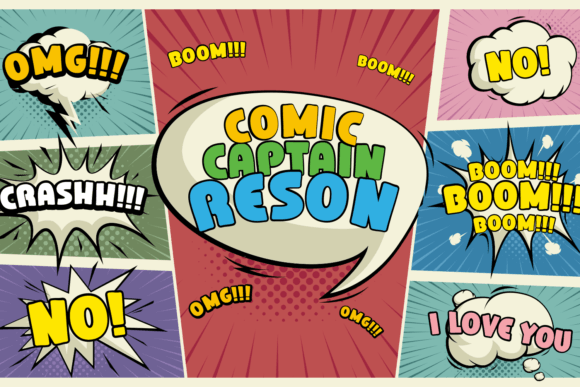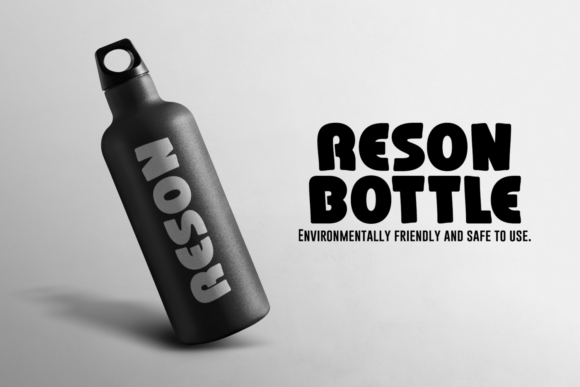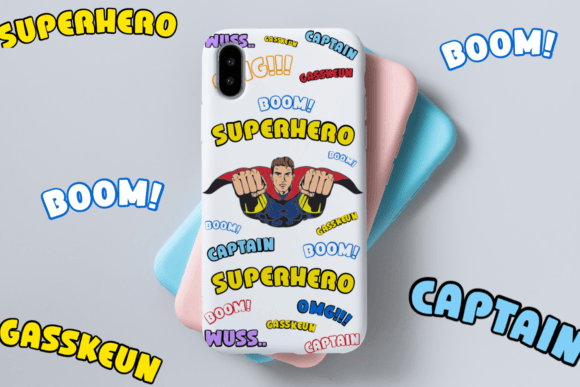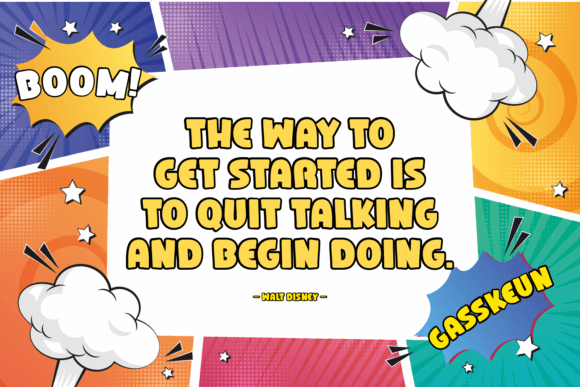
Introducing Captain Reson Font: The Bold and Beautiful Comic Display Font
Are you looking for a font that can add a touch of playfulness and charm to your design projects? Look no further than Captain Reson Font! This bold and beautiful comic display font is perfect for designers and crafters who want to create captivating posters, product packaging, banners, book covers, headlines, and more.
What Makes Captain Reson Font So Special?
Captain Reson Font is a unique and eye-catching font that features cute and chubby characters. Its bold and playful design makes it perfect for use in a variety of design projects, from children’s books and educational materials to advertising and marketing campaigns. The font’s comic-style characters are sure to grab attention and leave a lasting impression on your audience.
Key Features of Captain Reson Font
- Bold and Beautiful Design: Captain Reson Font features a bold and beautiful design that is sure to stand out in any design project.
- Cute and Chubby Characters: The font’s cute and chubby characters add a touch of playfulness and charm to any design.
- Comic Display Font: Captain Reson Font is a comic display font that is perfect for use in headlines, titles, and other display text.
- Easy to Read: Despite its bold and playful design, Captain Reson Font is easy to read, making it perfect for use in a variety of design projects.
Uses for Captain Reson Font
Captain Reson Font is a versatile font that can be used in a variety of design projects, including:
- Posters: Use Captain Reson Font to create eye-catching posters that grab attention and communicate your message.
- Product Packaging: Add a touch of playfulness and charm to your product packaging with Captain Reson Font.
- Banners: Use Captain Reson Font to create bold and beautiful banners that showcase your brand or message.
- Book Covers: Captain Reson Font is perfect for use in book covers, especially for children’s books and comics.
- Headlines: Use Captain Reson Font to create bold and attention-grabbing headlines that draw readers in.
Why Designers and Crafters Love Captain Reson Font
Designers and crafters love Captain Reson Font for its unique and eye-catching design. The font’s bold and playful characters add a touch of personality and charm to any design project, making it perfect for use in a variety of applications. Additionally, Captain Reson Font is easy to use and can be easily integrated into most design software.
Tips for Using Captain Reson Font
- Use it Sparingly: While Captain Reson Font is a bold and beautiful font, it can be overwhelming if used too much. Use it sparingly to add emphasis and draw attention to key elements in your design.
- Pair it with Other Fonts: Captain Reson Font pairs well with other fonts, especially sans-serif fonts. Experiment with different font combinations to find the perfect look for your design.
- Experiment with Colors: Captain Reson Font looks great in a variety of colors. Experiment with different colors and gradients to find the perfect look for your design.
Captain Reson Font is a bold and beautiful comic display font that is perfect for designers and crafters who want to add a touch of playfulness and charm to their design projects. With its cute and chubby characters, bold and playful design, and ease of use, Captain Reson Font is a versatile font that can be used in a variety of applications. Whether you’re creating posters, product packaging, banners, book covers, or headlines, Captain Reson Font is sure to grab attention and leave a lasting impression on your audience.